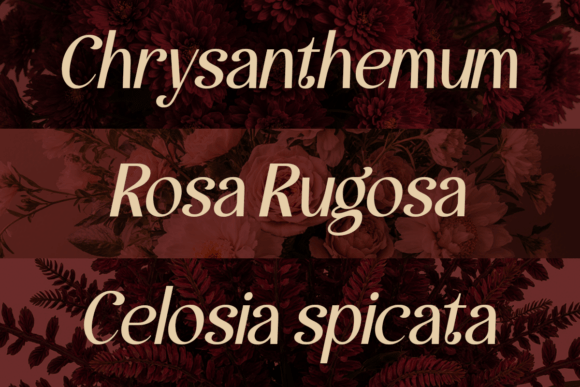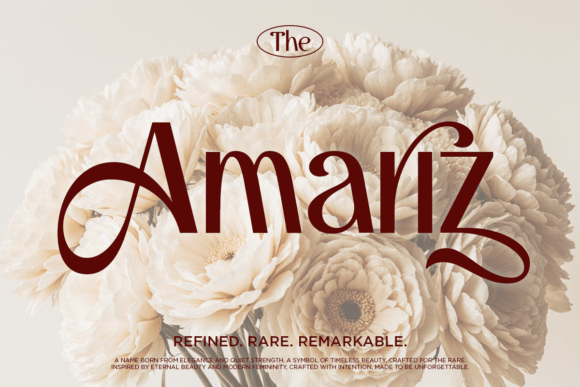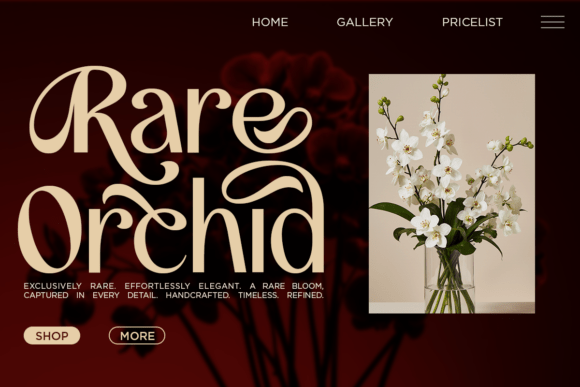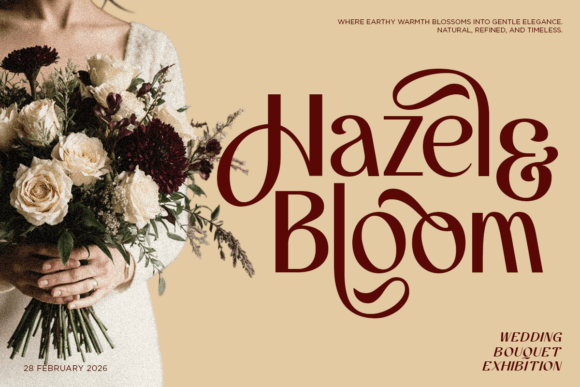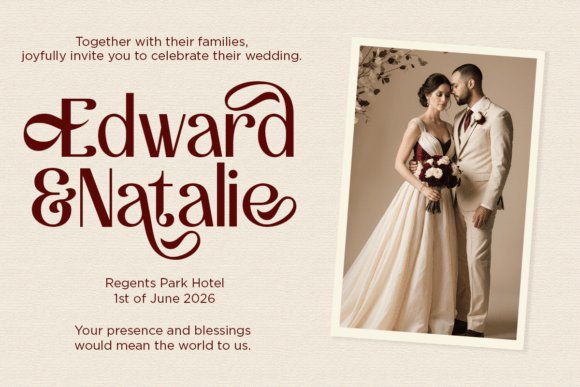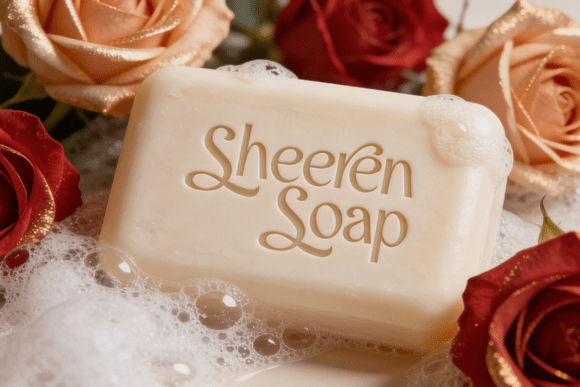
Unveiling the Elegance of Andores Font: Where Luxury Meets Whimsy
Have you ever stumbled upon a beautifully crafted font that instantly transports you to a world of romance and sophistication? That’s exactly what happens when you lay eyes on Andores Font. This stunning sans serif typeface is designed to evoke the essence of elegance, charm, and soft visual luxury through its flowing letterforms and refined proportions.
Whether you’re a seasoned designer or a creative enthusiast, Andores Font offers a treasure trove of possibilities. With its delicate balance between modern simplicity and ornamental sophistication, this font allows designers to build eye-catching headlines, logos, and brand identities that exude emotional appeal and a premium feel. Perfect for a range of applications, from feminine branding and beauty products to fashion labels and lifestyle visuals, Andores Font is a valuable addition to any designer’s toolkit.
- Unique Characteristics: Andores Font features a unique blend of modern and traditional elements, with intricate details and ornate flourishes that set it apart from other fonts.
Andores Font Review
Overall, I was quite impressed with Andores Font, a stylish and elegant typeface that’s perfect for any creative project. Here’s what I liked:
- โจ Its sleek and modern design makes it suitable for a wide range of applications, from fashion and lifestyle to technology and more.
- โจ The font is highly customizable, allowing you to adjust its weight, spacing, and other characteristics to fit your project’s specific needs.
- โจ The font is also highly legible, making it easy to read even at smaller font sizes.
- โ ๏ธ The font may not be as suitable for body text, as it can be a bit too ornate and distracting.
- โ ๏ธ The font’s high customizability can also make it overwhelming to work with, especially for beginners.
Overall, I’d give Andores Font 4 out of 5 stars. While it may not be perfect for every project, its stylish design and high customizability make it a great choice for creatives looking to add a touch of elegance to their work.
Getting the Most Out of Andores Font
For the best results, use Andores Font in bold or italic styles to add emphasis to your text.
Andores Font is ideal for:
1. Headings and titles.
2. Emphasizing important information.
3. Creating visually appealing documents and presentations.
Alternatives to Andores Font
Playfair Display is a luxurious, elegant script font perfect for high-end branding, advertising, and editorial design. It features intricate details and ornate flourishes, making it ideal for adding a touch of sophistication and refinement to your designs.
Compared to Andores Font, Playfair Display has a more formal and luxurious feel, making it suitable for high-end projects. While Andores Font is more versatile and suitable for a wide range of designs, Playfair Display excels in specific contexts where elegance and refinement are crucial.
Abril Fatface is a modern, elegant font that combines the beauty of traditional typography with a contemporary feel. It features a bold, fatface design that makes it perfect for headlines, titles, and other large-scale typography.
Compared to Andores Font, Abril Fatface has a more modern and edgy feel, making it suitable for projects that require a bold and attention-grabbing typography. While Andores Font is more versatile and suitable for a wide range of designs, Abril Fatface excels in contexts where a modern and bold aesthetic is desired.